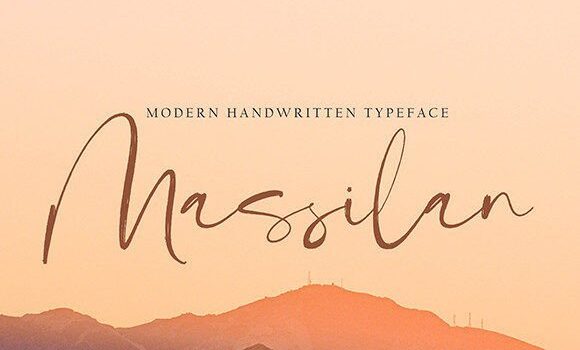
Massilan Font – Free Download Introduction to Massilan Font Massilan is a beautiful and modern handwritten font perfect for quotes, logos, blog headers, posters, branding, letters, invitations, stationery, and many more. 📸 Preview Gallery 6 images 📌 Product Name Massilan